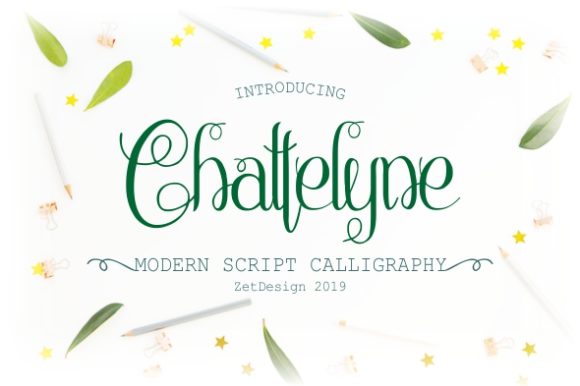
Introducing Chattelyne Font, the epitome of elegance and grace for your most cherished moments. Designed by the renowned ZetDesign, this exquisite script font exudes a timeless charm that will transform your wedding invitations, greeting cards, and heartfelt messages into unforgettable keepsakes.
Immerse yourself in the beauty of Chattelyne's intricate swashes, designed to capture the essence of flowing ink and add a touch of whimsy to your designs. Each letter is crafted with love and attention to detail, embodying the spirit of romance and celebration.
Chattelyne is not just a font; it's an eloquent expression of your love, a timeless treasure that will preserve the memories of your special day. Its delicate curves and graceful lines will evoke emotions and create a lasting impression on your loved ones. Unleash the power of Chattelyne Font and let your words dance with elegance and charm.